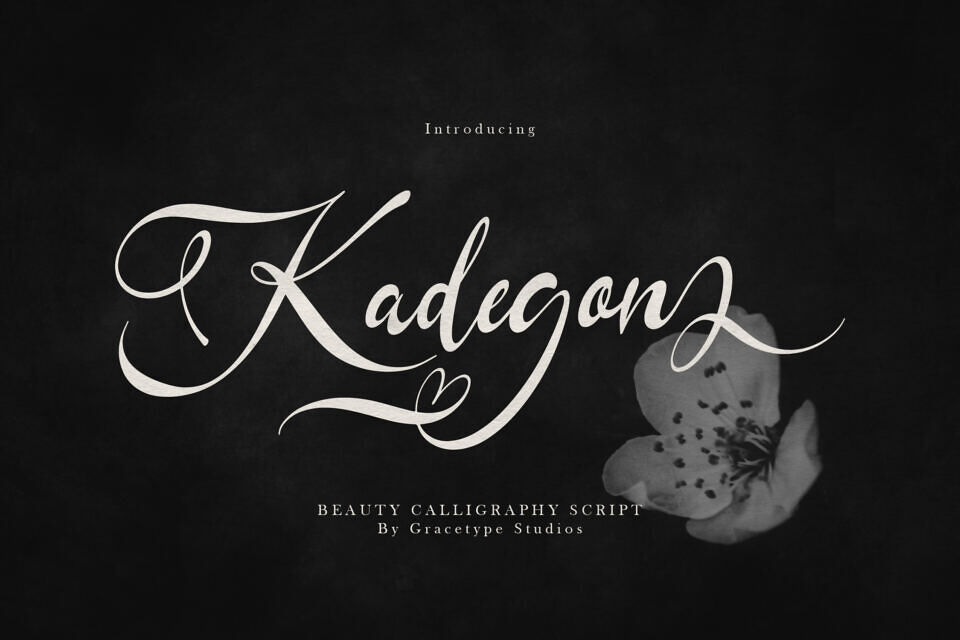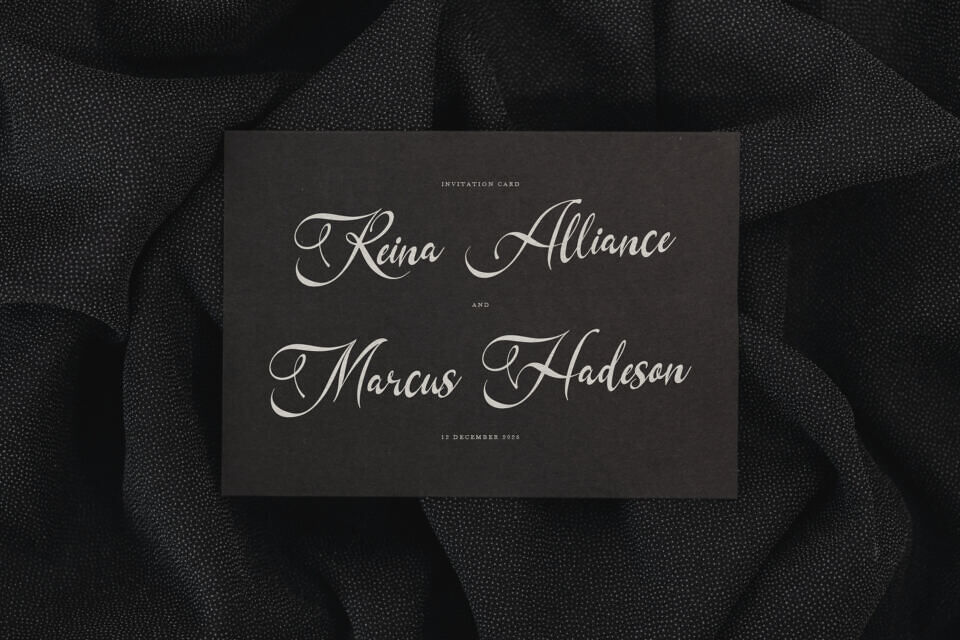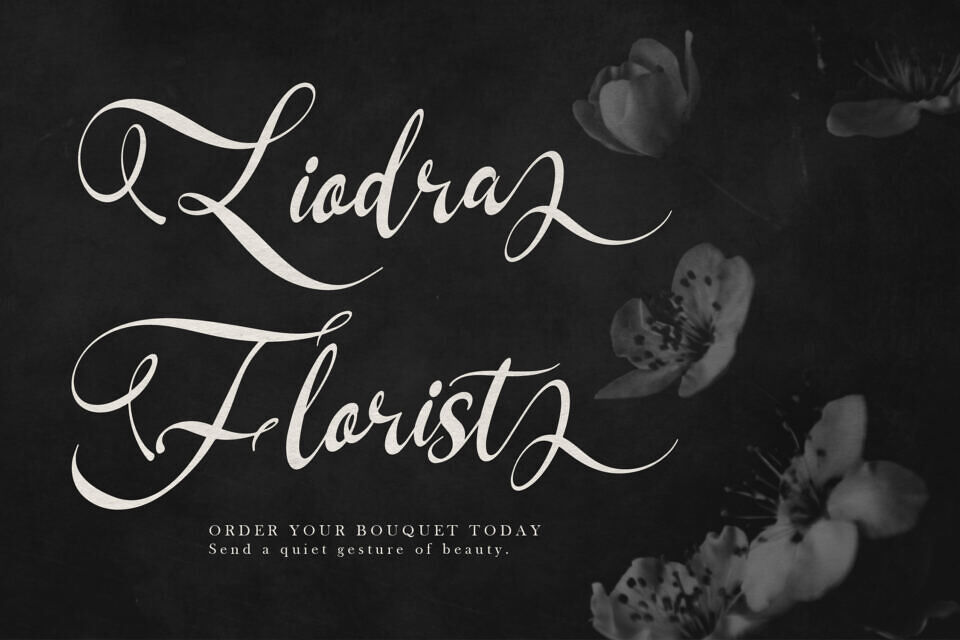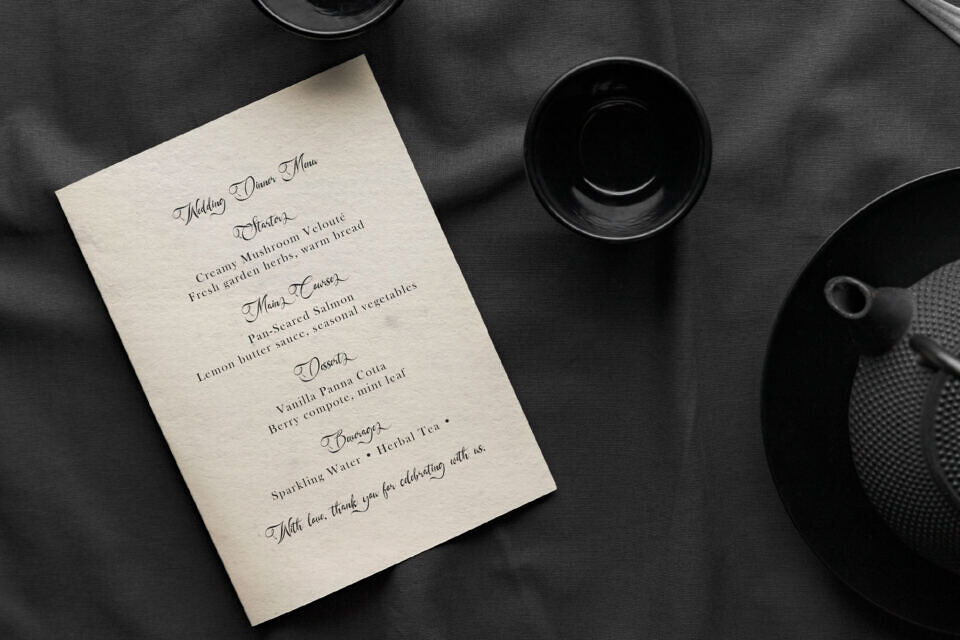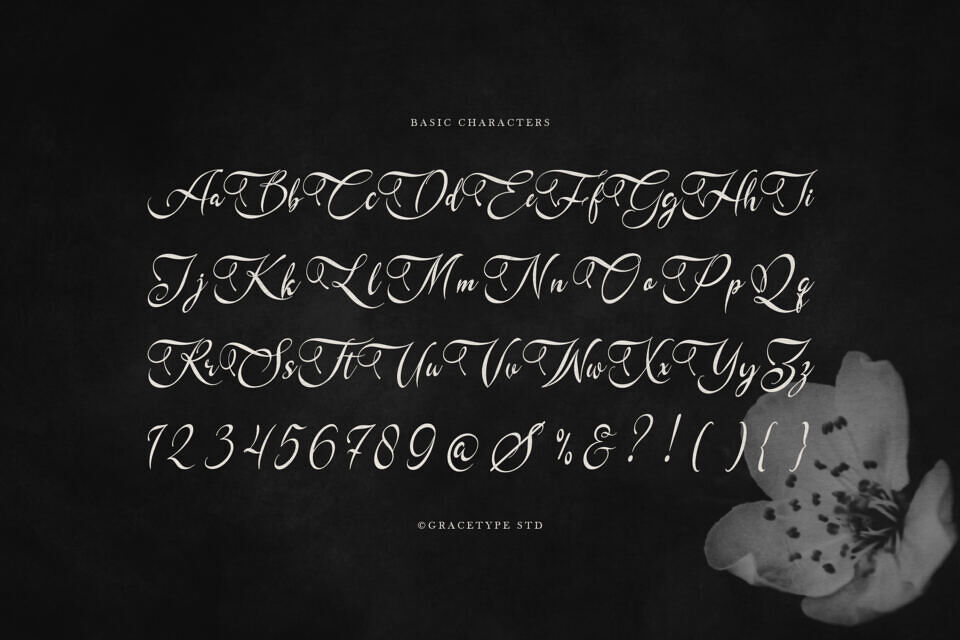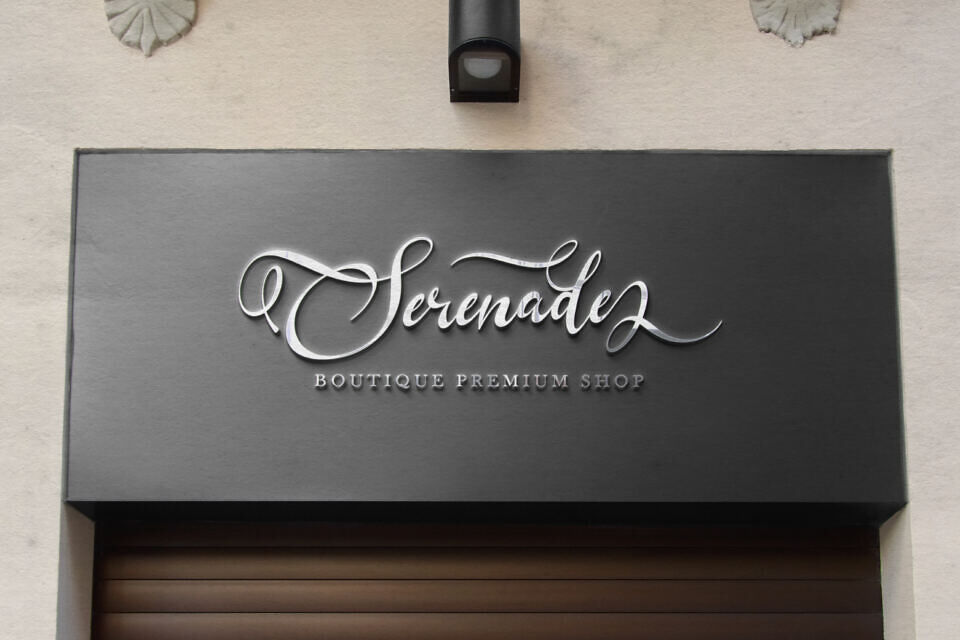
Kadegon Font
The Kadegons font exudes modern elegance with its flowing script and dramatic flourishes. Its beautiful swashes and heart-shaped details evoke a sense of luxury and intimacy, making it perfect for high-end branding, wedding invitations, and editorial layouts.
With its long, graceful tails, the font creates stunning compositions, especially when used for short titles or logos against dark backgrounds, adding a touch of timeless romance and sophistication to any design.